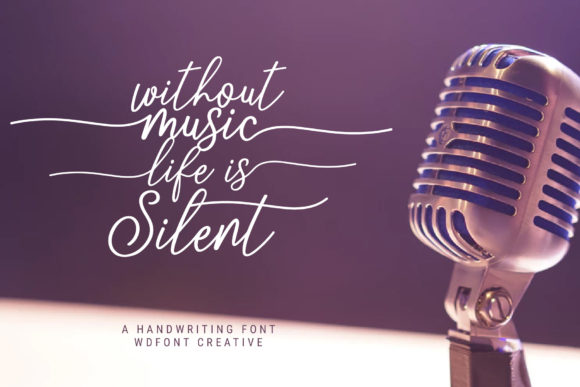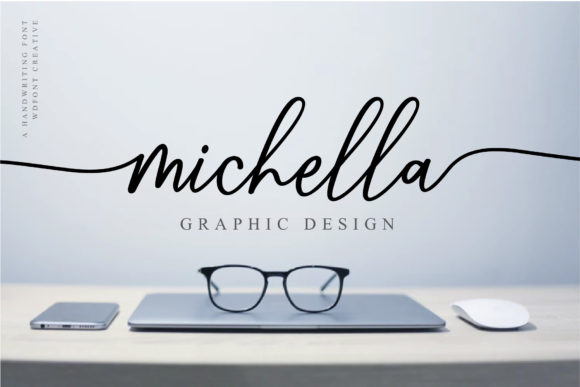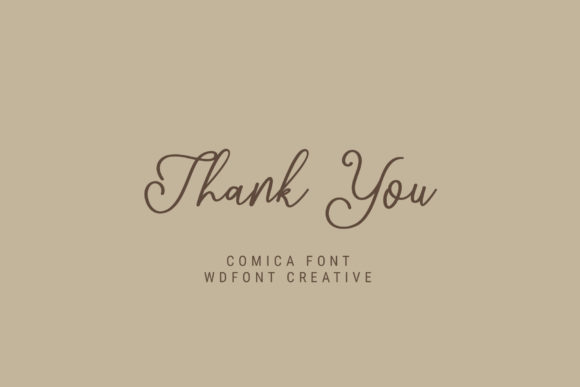
Comica Script Font
About Comica Script Font
Comica Script is a lovely and elegant handwritten font with an undeniably authentic charm. Get inspired by its bold swashes!